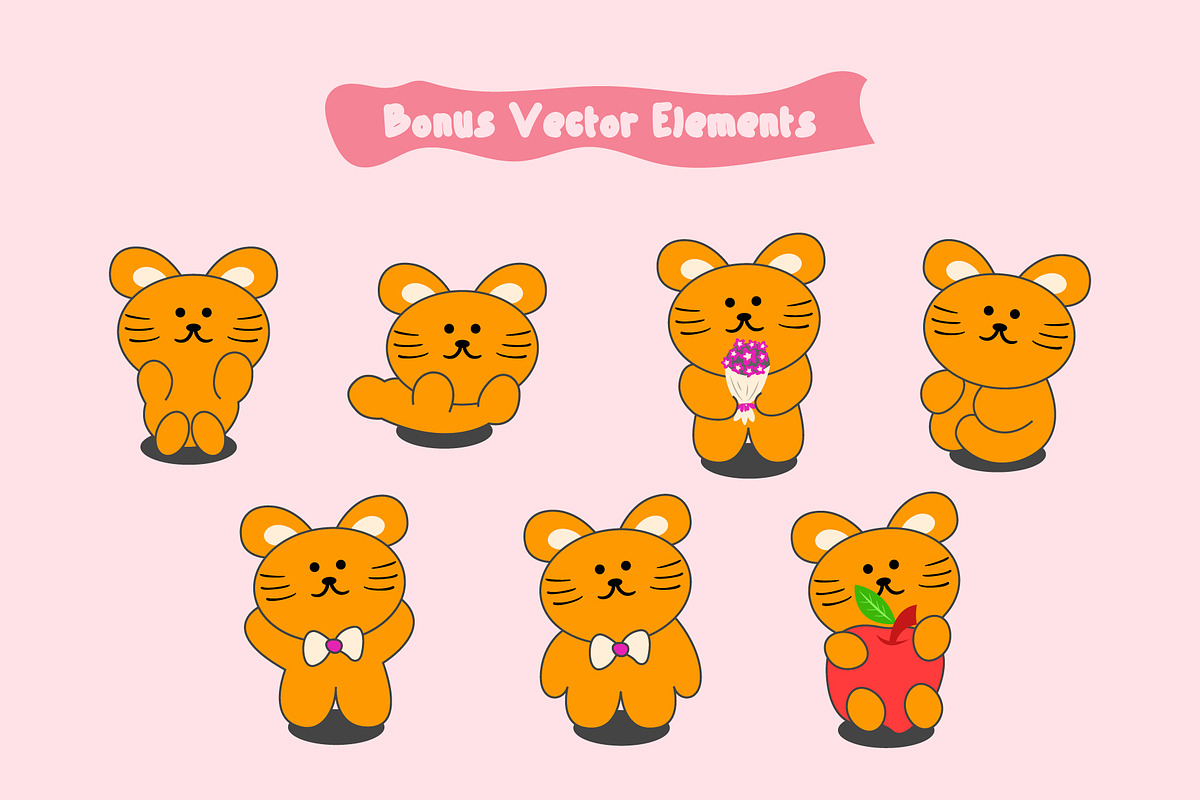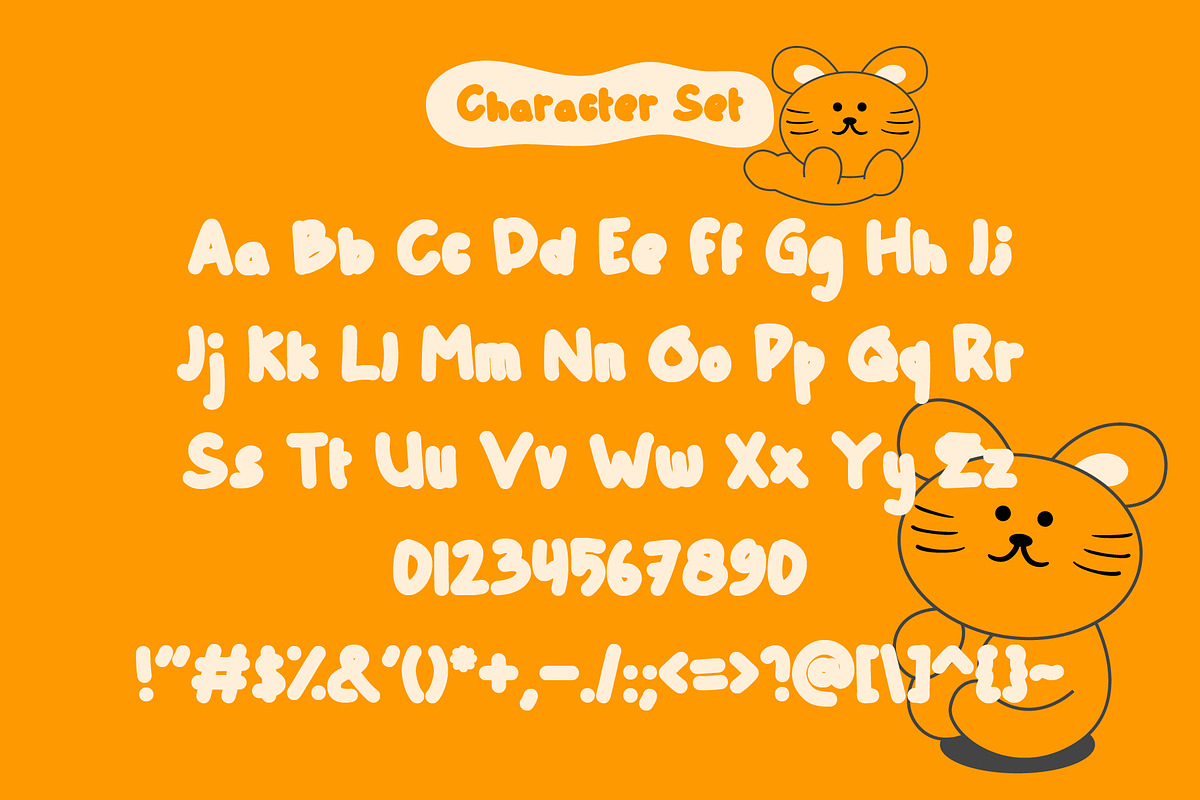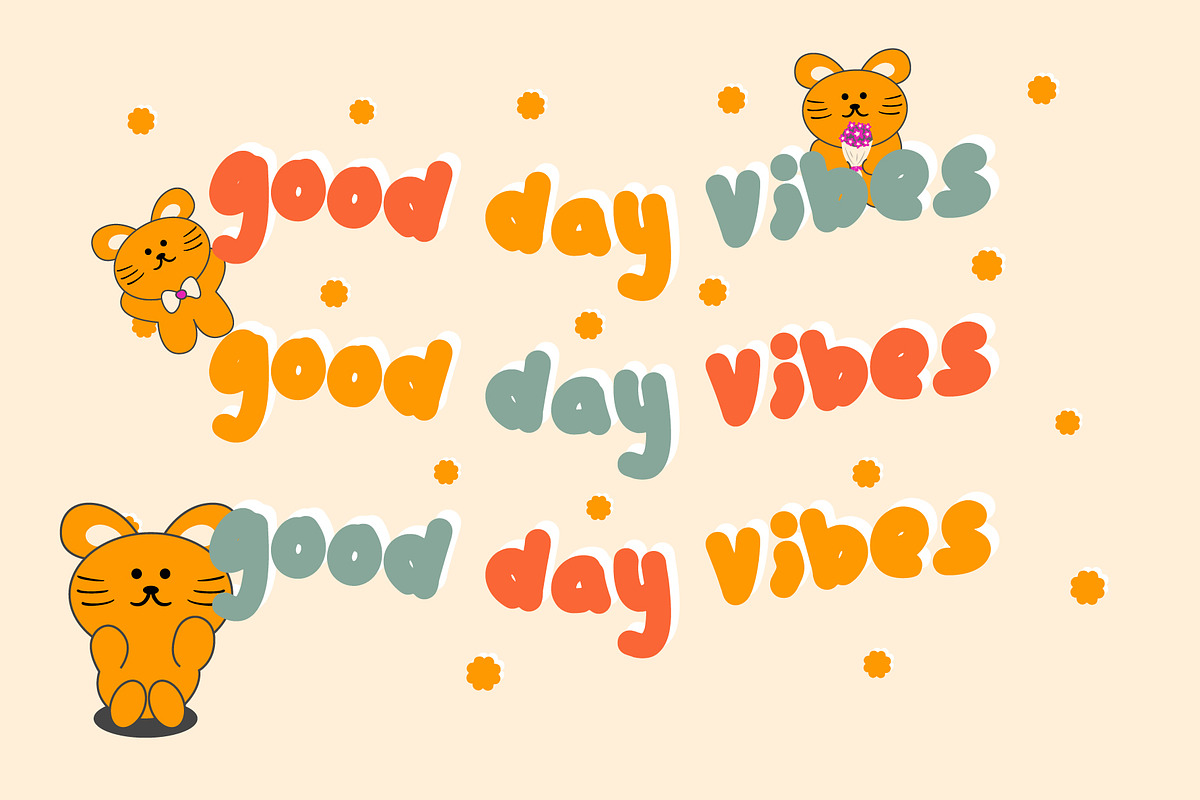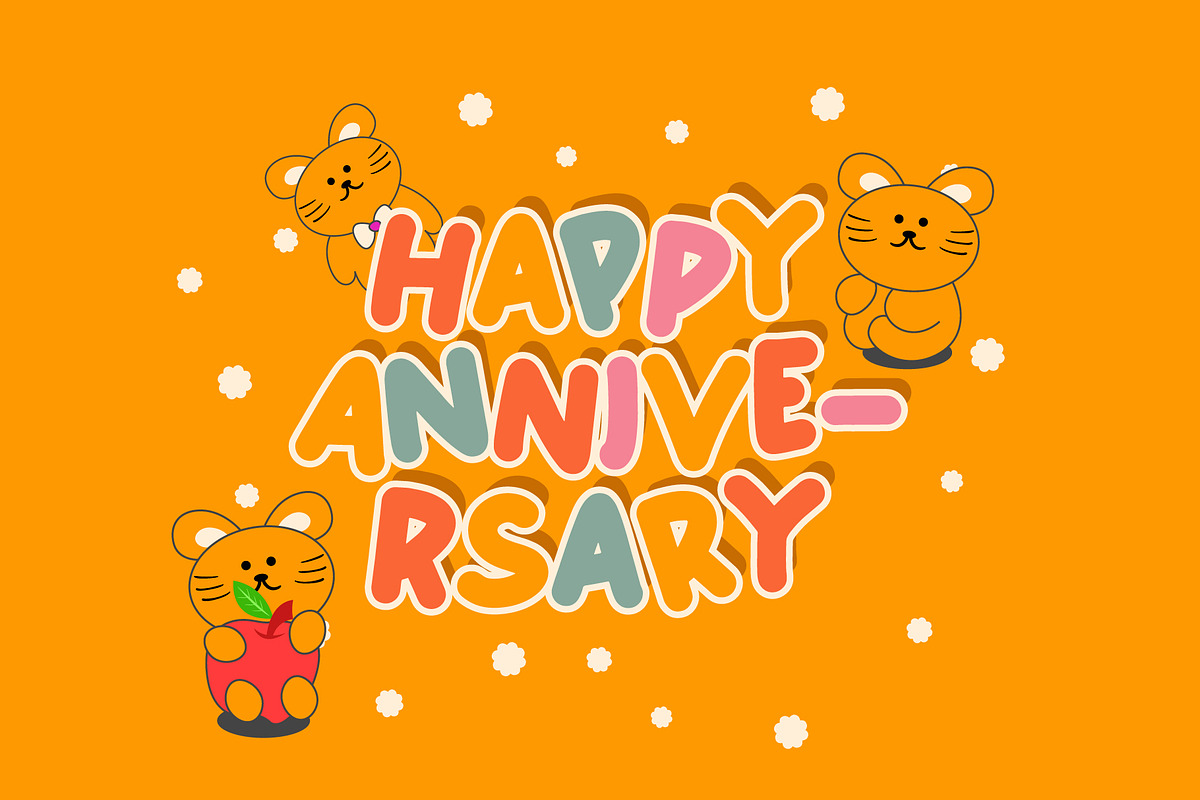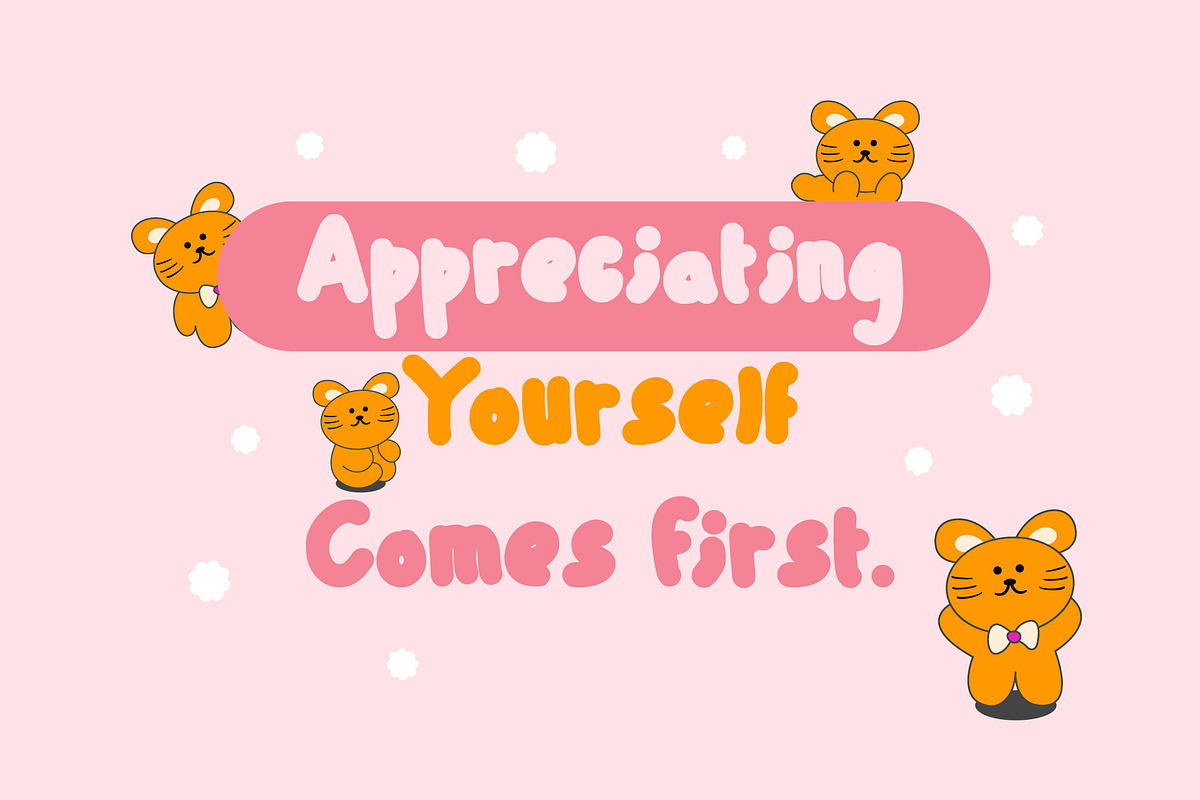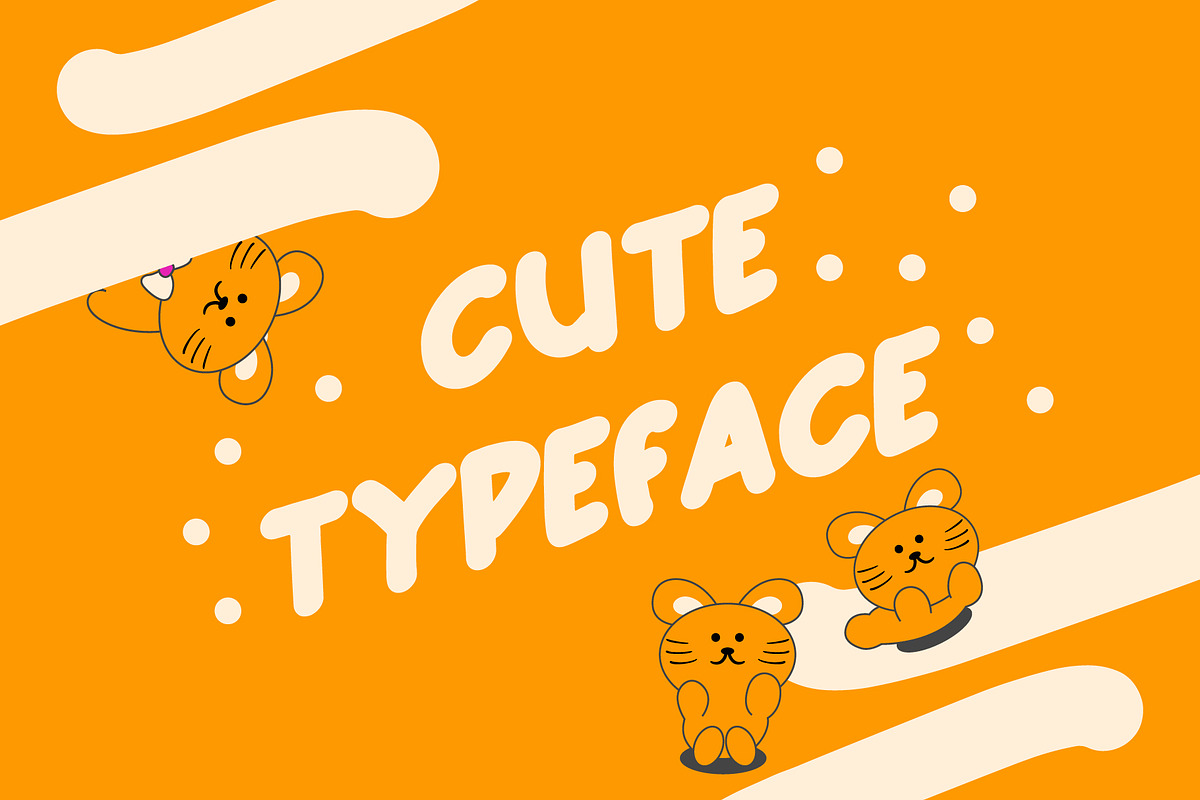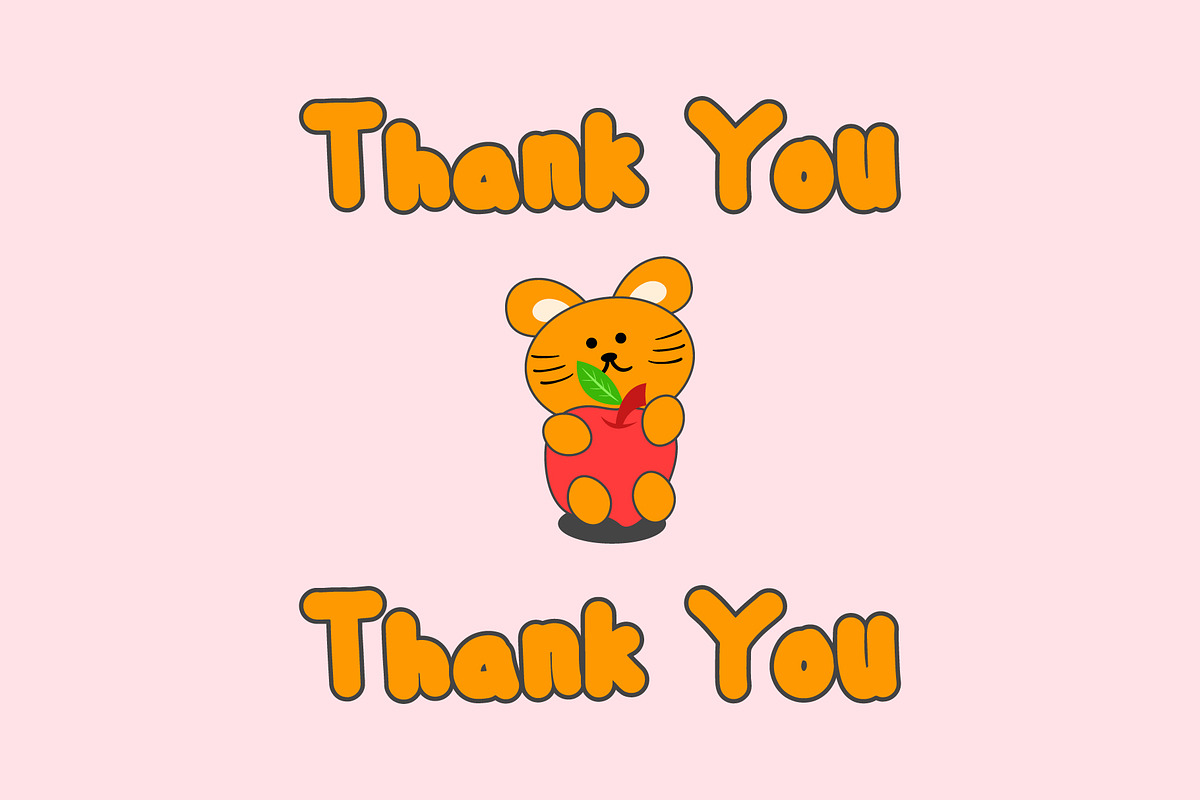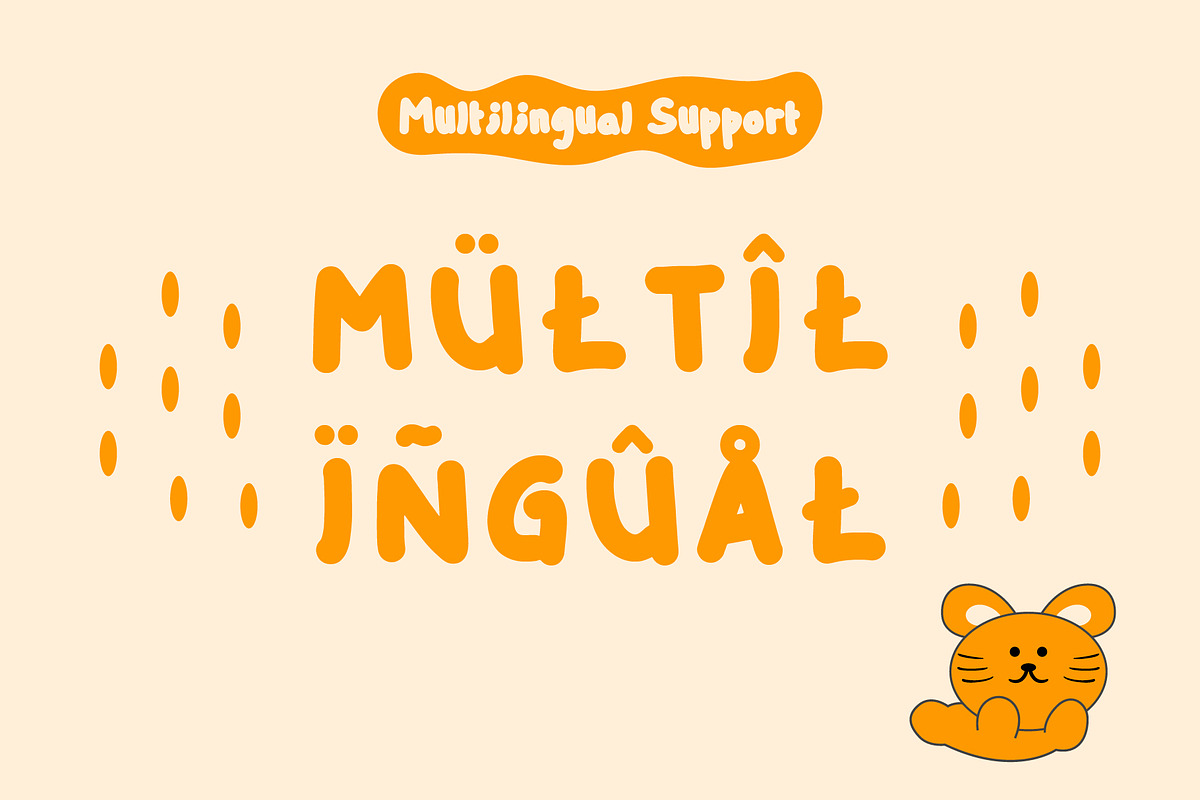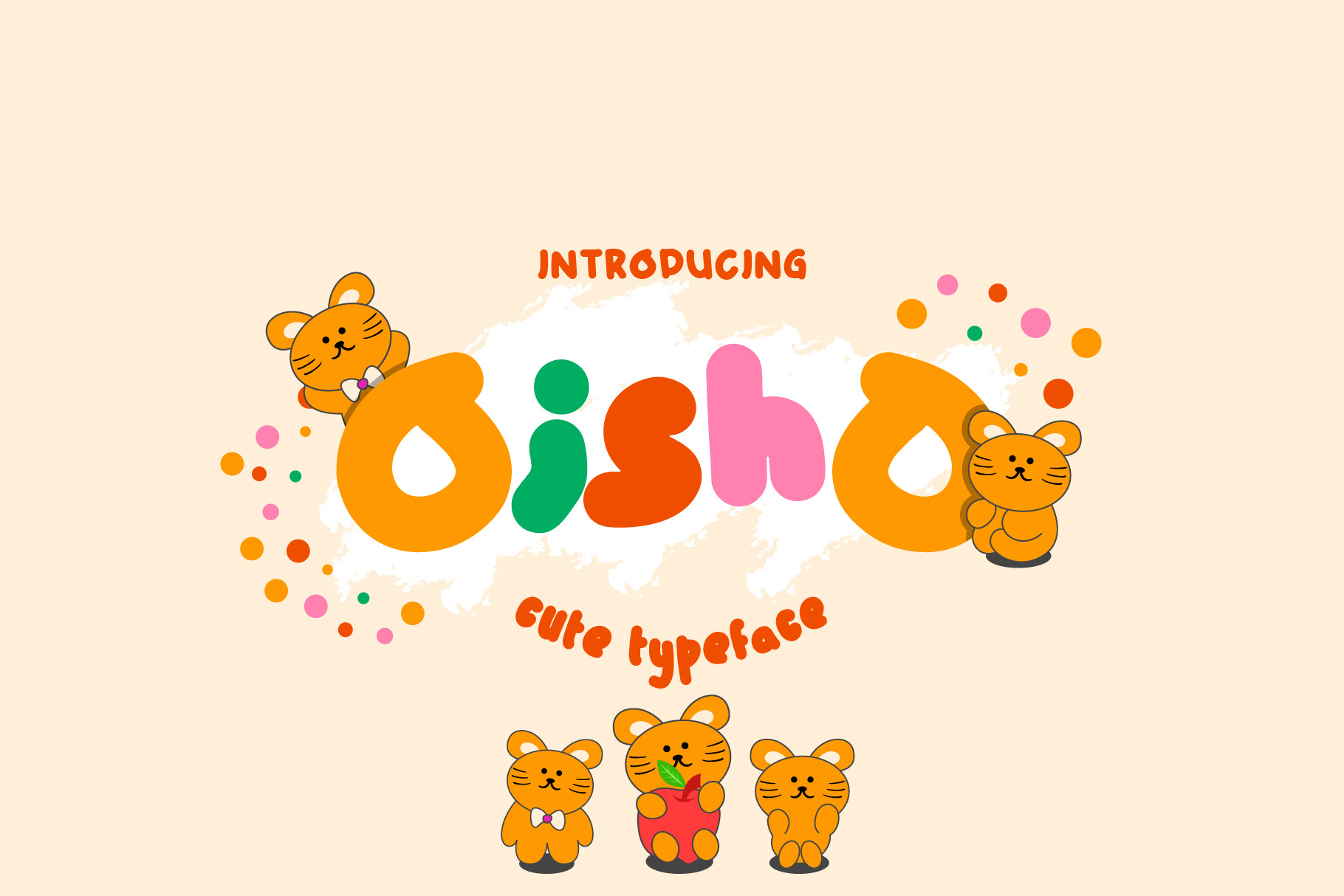
Oisho - Cute Font
The Oisho font features a "Playful Rounded Display" theme with a cute, cheerful, and friendly vibe. Its letterforms are rounded, bold, and soft—devoid of sharp angles—creating an impression that is welcoming, fun, and instantly recognizable. The typographic style resembles simplified handwriting with a modern cartoon twist, making it look adorable yet full of positive energy.
The chunky characters with rounded ends offer a warm, cheerful appearance, while slightly asymmetrical proportions add a natural, playful touch full of personality. This font effectively grabs attention without sacrificing readability, especially at larger sizes.
- Visual Characteristics
Playful
Rounded
Bubble
Cute
Friendly
Bold
Soft
Whimsical
Fun
Youthful
Handcrafted
Cartoon-inspired
- Suitable Themes
Kids & Baby
Cartoon
Animal Characters
Cute
Nursery
Preschool & Kindergarten
Toy Brands
Sweets & Desserts
Birthday Parties
Family Events
Comic Style
Cute Branding
- Ideal Uses
Children's product logos
Toy and baby gear branding
Children's event posters
Snack or candy packaging
Children's storybooks
Stickers and character illustrations
YouTube Kids thumbnails
Cute-themed social media content
Playful-themed Canva templates
Merchandise such as mugs, T-shirts, and tote bags